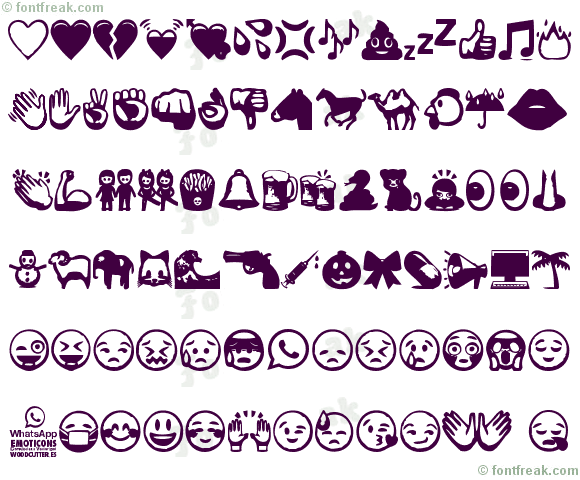
whatsapp emoticons
The WhatsApp Emoticons font by Woodcutter Manero is a distinctive and playful display typeface that captures the essence of modern digital communication. This font falls into the decorative category, characterized by its unique emoticon designs that are instantly recognizable. The visual characteristics include bold stroke weights and uniform spacing, giving it a cohesive look that enhances readability while maintaining a fun aesthetic. The emoticons range from expressive faces to various symbols, making it a versatile choice for various creative projects.
This font is perfect for a multitude of uses. Graphic designers can effortlessly incorporate it into social media graphics, infographics, or digital marketing materials, adding a touch of personality to their work. Small business owners might find it ideal for promotional flyers, business cards, or signage that aims to engage a younger audience. Content creators can utilize the WhatsApp Emoticons font in video overlays or blog posts, making their content more relatable and visually appealing. Additionally, it can be used in event invitations, such as birthday parties or casual gatherings, to convey a sense of fun and informality.
Targeted toward graphic designers, small business owners, and content creators, this font resonates particularly well with those looking to add a modern twist to their designs. The WhatsApp Emoticons font stands out due to its playful nature and ability to convey emotions and ideas visually, making communication more engaging. For anyone looking to elevate their creative projects, a whatsapp emoticons font free download is an excellent choice that combines artistry with functionality.